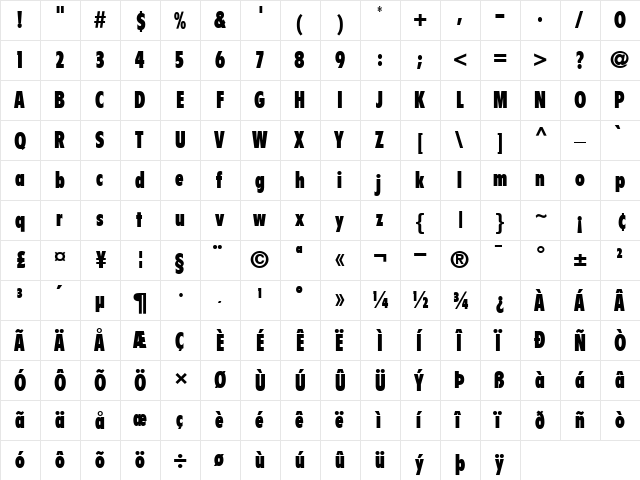
Flyer-CondensedExtraBlack Extra Black
Design Context for Flyer-CondensedExtraBlack Typeface
Flyer-CondensedExtraBlack offers clean, dependable letterforms without strong stylistic allegiance, making it a practical choice for designers who need flexibility. The condensed width makes it efficient for tight spaces without sacrificing legibility.
Pro Tip: Use Flyer-CondensedExtraBlack in both headline and body roles to test its range before committing to a single application.